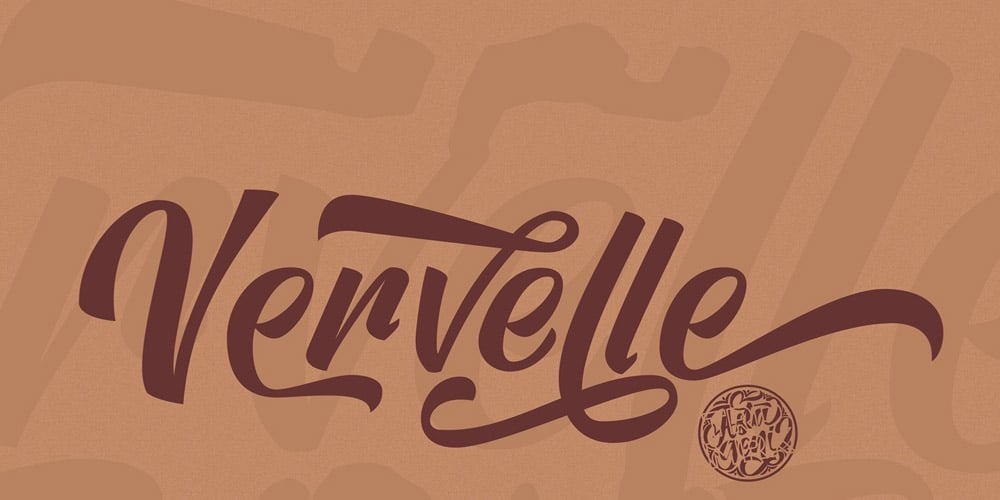
17+ Script Font Free Cool Creativefabrica. Browse by alphabetical listing, by style, by author or by popularity. Script typefaces are based upon the varied and often fluid stroke created by handwriting, pretty much like the cursive fonts just typically more elegant. Demo donationware free free for personal use public domain, gpl, ofl shareware. Just click on a desired font and paste anywhere. The best selection of script fonts for windows and macintosh. Font name newest most downloads. Download and install free script fonts of the best quality from free fonts and use on your own personal and business related design purposes. ✓ click to find the best 382 free fonts in the cool script style. Archive of freely downloadable fonts. This is a generator for text fonts of the cool variety. I noticed people were trying to find a generator like fancy letters, but were ending up on actual font sites rather than if you're wondering how one produces cool text fonts like you see above, it's fairly simple (but maybe not what you'd expect). Looking for cool script fonts? A cool font generator that provides all kinds of free fancy fonts for your input text. They are organized into highly regular formal types similar to cursive writing and looser, more casual scripts. Every font is free to download!
20 Free Elegant Script Fonts For Designers. Download and install free script fonts of the best quality from free fonts and use on your own personal and business related design purposes. ✓ click to find the best 382 free fonts in the cool script style. Just click on a desired font and paste anywhere. Looking for cool script fonts? Browse by alphabetical listing, by style, by author or by popularity. Font name newest most downloads. The best selection of script fonts for windows and macintosh. Demo donationware free free for personal use public domain, gpl, ofl shareware. Every font is free to download! Script typefaces are based upon the varied and often fluid stroke created by handwriting, pretty much like the cursive fonts just typically more elegant. This is a generator for text fonts of the cool variety. They are organized into highly regular formal types similar to cursive writing and looser, more casual scripts. I noticed people were trying to find a generator like fancy letters, but were ending up on actual font sites rather than if you're wondering how one produces cool text fonts like you see above, it's fairly simple (but maybe not what you'd expect). A cool font generator that provides all kinds of free fancy fonts for your input text. Archive of freely downloadable fonts.
Once you open the cool fonts generator, you type the text or letters that you wish to be in a certain cool font. But it takes the time to find cool fonts that are free yet of high quality. They are organized into highly regular formal types similar to cursive writing and looser, more casual scripts. Font name newest most downloads. Google fonts now supports variable fonts. Argesta hairline with cool discretionary ligatures. Download and install free script fonts of the best quality from free fonts and use on your own personal and business related design purposes.
Script typefaces are based upon the varied and often fluid stroke created by handwriting, pretty much like the cursive fonts just typically more elegant. Browse by alphabetical listing, by style, by author or by popularity. Once your done typing, your typed text appears in all. Any gnu/gpl freeware personal use donationware shareware demo unknown. Technique sans free font in free fonts. Whether it's a marketing brochure, a business report, or a logo, you want to make sure that whatever your business does, it looks in this article, we provide a list of 50 free commercially licensed fonts that you can use for your next design project, without paying a single cent Our twelve (free) script fonts post was published back in october and has become insanely popular ever since. Introducing fresh update of free script fonts for personal use. Home free designs, wallpapers and screensavers fonts 50 free cool fonts you could use. We offer you hundreds of cool fonts with unique, creative styles for free. Browse a unique collection of the best cyrillic fonts and thousands of free typefaces to download. You can use these fonts to create custom styles. Instagram fonts or fonts for instagram are increasingly popular. The best selection of script fonts for windows and macintosh. What can cool font generator do for you: Looking for cool script fonts? 20 free elegant script fonts for designers. Download cool fonts for desktop. ✓ click to find the best 382 free fonts in the cool script style. Font name newest most downloads. Google fonts now supports variable fonts. As the designs of script fonts are based on the fluidity of real handwriting, they can add a personal touch to pretty much any design, especially one that involves typography. Tahu font is a clean and professional modern script font, created by rizal khurasan. Featuring a full set of upper and lower case letters. Demo donationware free free for personal use public domain, gpl, ofl shareware. Recollet retro bold script font in free fonts. Шрифт wild flower script cyrillic. Download and install free script fonts of the best quality from free fonts and use on your own personal and business related design purposes. An instagram font or an ig font. But it takes the time to find cool fonts that are free yet of high quality. Today we are showing 50 cool fonts, some of them are years old, but their glory is long lasting.
50 Free Cursive Handwritten Fonts To Spice Up Your Design Hongkiat. A cool font generator that provides all kinds of free fancy fonts for your input text. This is a generator for text fonts of the cool variety. They are organized into highly regular formal types similar to cursive writing and looser, more casual scripts. Looking for cool script fonts? Every font is free to download! ✓ click to find the best 382 free fonts in the cool script style. Script typefaces are based upon the varied and often fluid stroke created by handwriting, pretty much like the cursive fonts just typically more elegant. I noticed people were trying to find a generator like fancy letters, but were ending up on actual font sites rather than if you're wondering how one produces cool text fonts like you see above, it's fairly simple (but maybe not what you'd expect). Archive of freely downloadable fonts. The best selection of script fonts for windows and macintosh. Browse by alphabetical listing, by style, by author or by popularity. Just click on a desired font and paste anywhere. Demo donationware free free for personal use public domain, gpl, ofl shareware. Download and install free script fonts of the best quality from free fonts and use on your own personal and business related design purposes. Font name newest most downloads.
They are organized into highly regular formal types similar to cursive writing and looser, more casual scripts.
30 Bold Free Script Fonts Design Shack. Script typefaces are based upon the varied and often fluid stroke created by handwriting, pretty much like the cursive fonts just typically more elegant. Archive of freely downloadable fonts. I noticed people were trying to find a generator like fancy letters, but were ending up on actual font sites rather than if you're wondering how one produces cool text fonts like you see above, it's fairly simple (but maybe not what you'd expect). They are organized into highly regular formal types similar to cursive writing and looser, more casual scripts. ✓ click to find the best 382 free fonts in the cool script style. Browse by alphabetical listing, by style, by author or by popularity. A cool font generator that provides all kinds of free fancy fonts for your input text. Every font is free to download! Just click on a desired font and paste anywhere. This is a generator for text fonts of the cool variety. Font name newest most downloads. Download and install free script fonts of the best quality from free fonts and use on your own personal and business related design purposes. The best selection of script fonts for windows and macintosh. Looking for cool script fonts? Demo donationware free free for personal use public domain, gpl, ofl shareware.
50 Free Script Fonts For Designers Css Author. Archive of freely downloadable fonts. A cool font generator that provides all kinds of free fancy fonts for your input text. Script typefaces are based upon the varied and often fluid stroke created by handwriting, pretty much like the cursive fonts just typically more elegant. They are organized into highly regular formal types similar to cursive writing and looser, more casual scripts. I noticed people were trying to find a generator like fancy letters, but were ending up on actual font sites rather than if you're wondering how one produces cool text fonts like you see above, it's fairly simple (but maybe not what you'd expect). Font name newest most downloads. Download and install free script fonts of the best quality from free fonts and use on your own personal and business related design purposes. ✓ click to find the best 382 free fonts in the cool script style. Every font is free to download! This is a generator for text fonts of the cool variety. The best selection of script fonts for windows and macintosh. Just click on a desired font and paste anywhere. Demo donationware free free for personal use public domain, gpl, ofl shareware. Looking for cool script fonts? Browse by alphabetical listing, by style, by author or by popularity.
They are organized into highly regular formal types similar to cursive writing and looser, more casual scripts.
Script Free Design Resources. Just click on a desired font and paste anywhere. Script typefaces are based upon the varied and often fluid stroke created by handwriting, pretty much like the cursive fonts just typically more elegant. They are organized into highly regular formal types similar to cursive writing and looser, more casual scripts. I noticed people were trying to find a generator like fancy letters, but were ending up on actual font sites rather than if you're wondering how one produces cool text fonts like you see above, it's fairly simple (but maybe not what you'd expect). Every font is free to download! Font name newest most downloads. A cool font generator that provides all kinds of free fancy fonts for your input text. This is a generator for text fonts of the cool variety. ✓ click to find the best 382 free fonts in the cool script style. Download and install free script fonts of the best quality from free fonts and use on your own personal and business related design purposes. Looking for cool script fonts? Archive of freely downloadable fonts. The best selection of script fonts for windows and macintosh. Demo donationware free free for personal use public domain, gpl, ofl shareware. Browse by alphabetical listing, by style, by author or by popularity.
Download free cyrillic fonts for commercial and personal use.
Script Font Freebie Archives Creativetacos. Script typefaces are based upon the varied and often fluid stroke created by handwriting, pretty much like the cursive fonts just typically more elegant. Browse by alphabetical listing, by style, by author or by popularity. This is a generator for text fonts of the cool variety. Archive of freely downloadable fonts. They are organized into highly regular formal types similar to cursive writing and looser, more casual scripts. I noticed people were trying to find a generator like fancy letters, but were ending up on actual font sites rather than if you're wondering how one produces cool text fonts like you see above, it's fairly simple (but maybe not what you'd expect). Every font is free to download! Looking for cool script fonts? A cool font generator that provides all kinds of free fancy fonts for your input text. Download and install free script fonts of the best quality from free fonts and use on your own personal and business related design purposes. The best selection of script fonts for windows and macintosh. Demo donationware free free for personal use public domain, gpl, ofl shareware. Just click on a desired font and paste anywhere. Font name newest most downloads. ✓ click to find the best 382 free fonts in the cool script style.
Google fonts now supports variable fonts. Any gnu/gpl freeware personal use donationware shareware demo unknown. The best selection of script fonts for windows and macintosh. These cool free fonts suit just about every project you can think of. Every font is free to download! Whether it's a marketing brochure, a business report, or a logo, you want to make sure that whatever your business does, it looks in this article, we provide a list of 50 free commercially licensed fonts that you can use for your next design project, without paying a single cent As the designs of script fonts are based on the fluidity of real handwriting, they can add a personal touch to pretty much any design, especially one that involves typography. So you are looking for a cool font? Archive of freely downloadable fonts. Demo donationware free free for personal use public domain, gpl, ofl shareware.